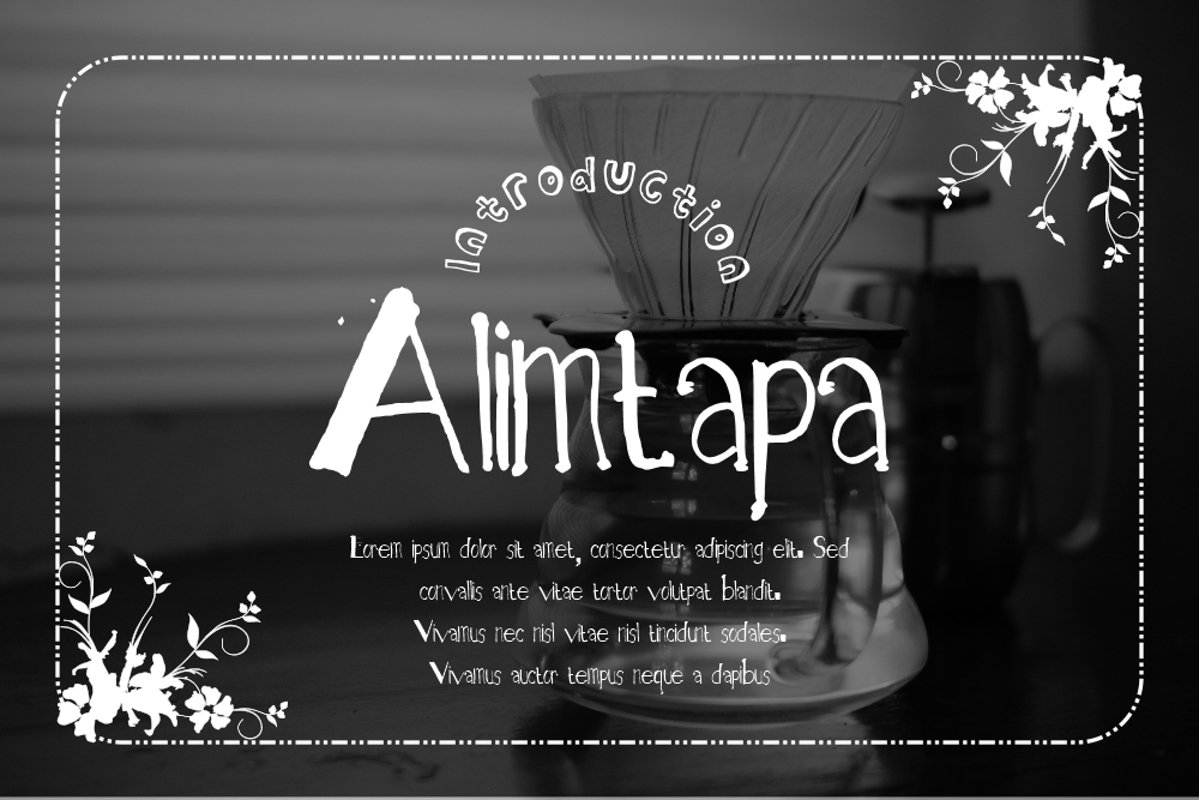
Alimtapa
Alimtapa Typeface is a Display type. It suitable for any vintage type needs and more Happy creating.Very suitable for you who do exploration